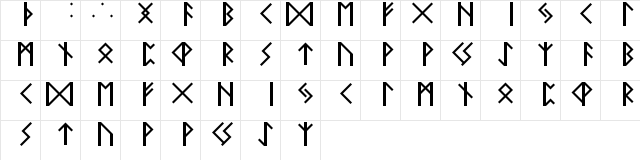
Elder Futhark Regular
Design Context for Elder Futhark Typeface
Elder Futhark offers clean, dependable letterforms without strong stylistic allegiance, making it a practical choice for designers who need flexibility.